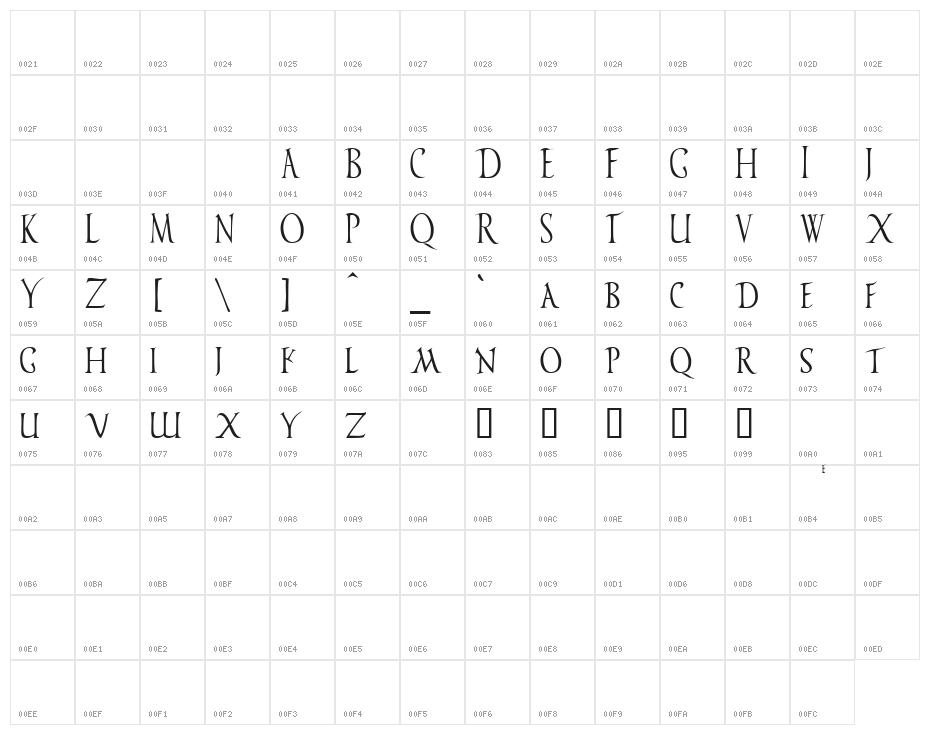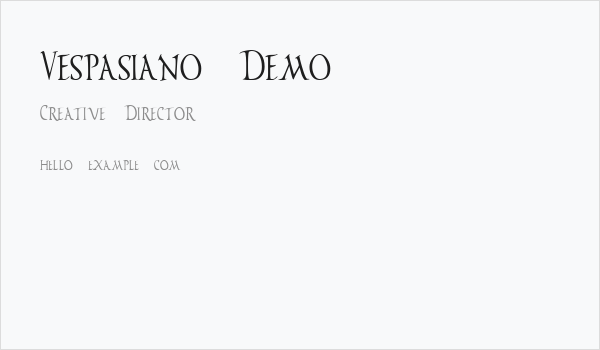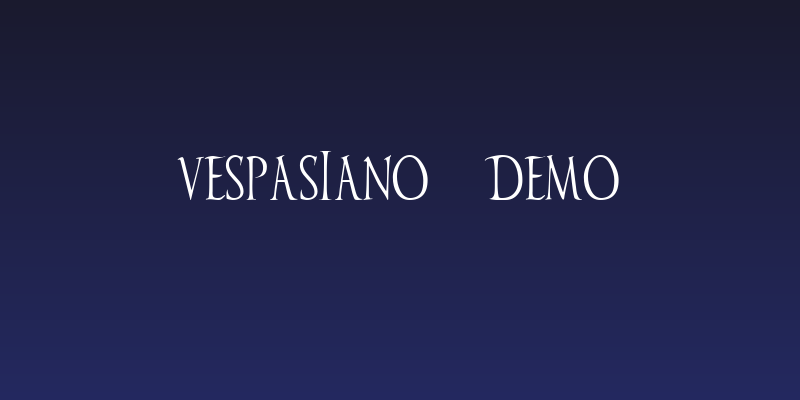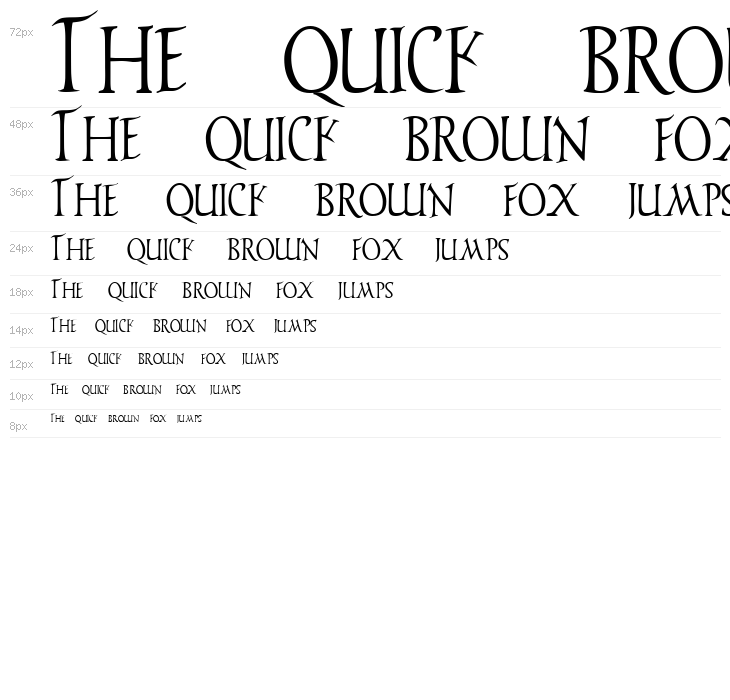
Vespasiano Demo Font
Vespasiano Demo Description
This font exhibits a classic and elegant style, characterized by its calligraphic and slightly ornate design. The letters have a distinct flair with sharp, pointed serifs and a graceful flow, reminiscent of historical scripts. The uppercase letters are tall and commanding, while the lowercase letters maintain a consistent rhythm and balance. The strokes vary in thickness, providing a medium contrast that enhances readability while maintaining a decorative appeal. This font is suitable for projects that require a touch of sophistication and historical charm.
| Use Case | Headlines, Logos, Decorative text |
| Proposed Projects | Ideal for invitations, certificates, book covers, and branding that seeks a historical or sophisticated aesthetic. |